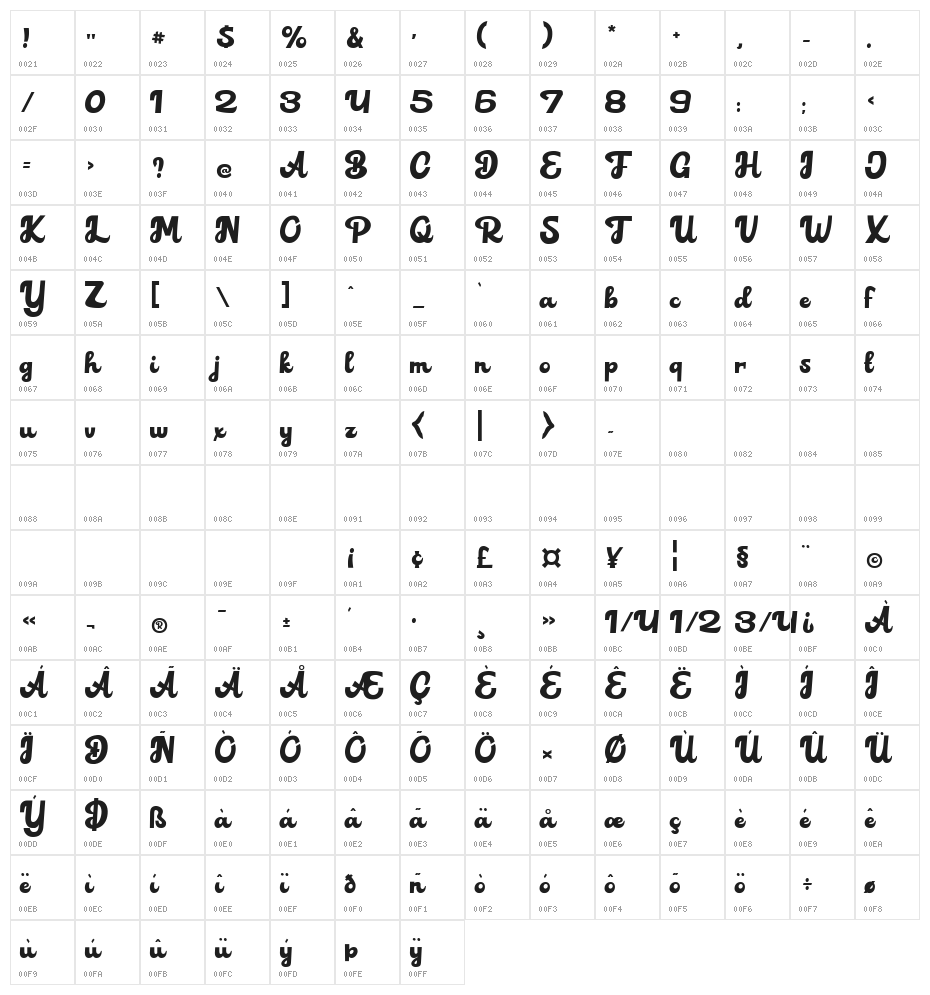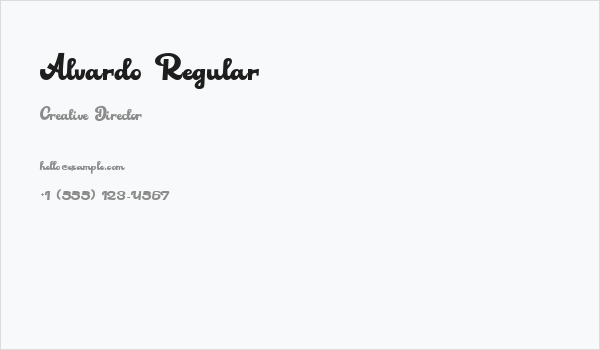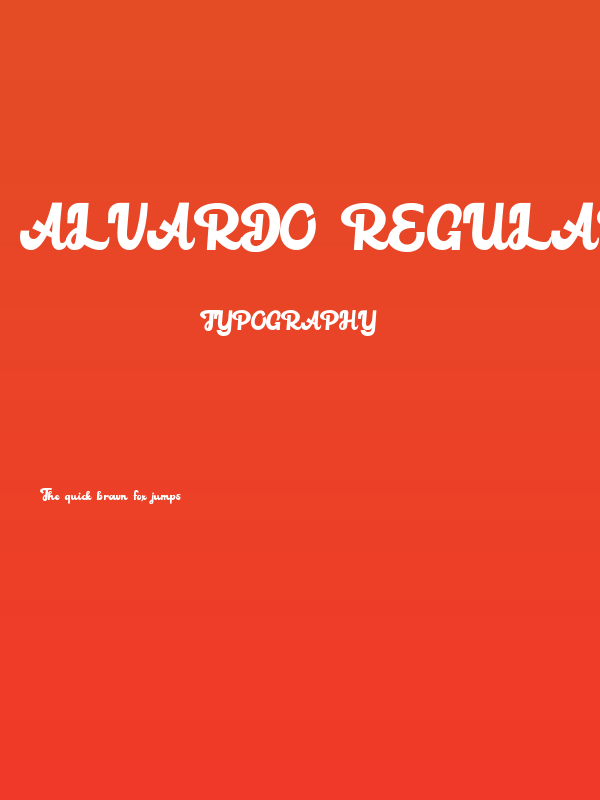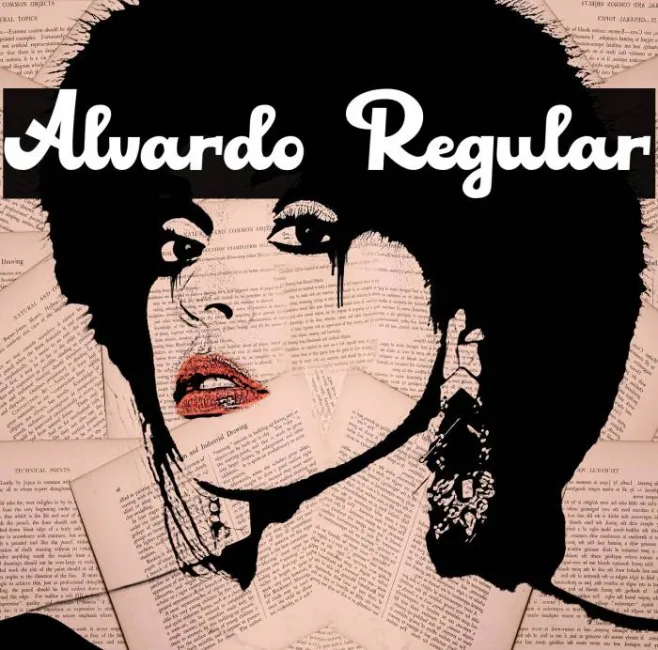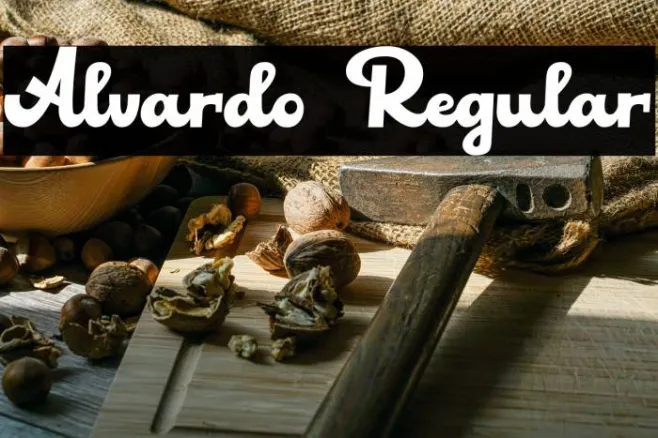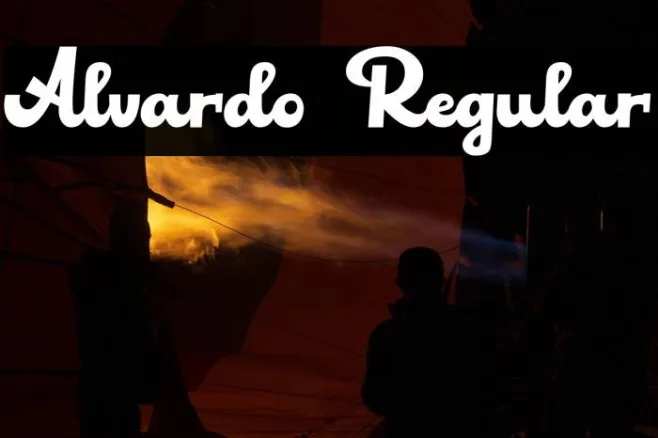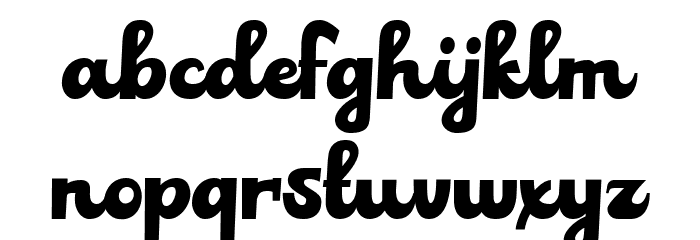
Alvardo Regular Font
Alvardo Regular Description
This font features a bold, flowing script style with a playful and dynamic appearance. The uppercase letters are characterized by their thick strokes and rounded edges, giving them a robust and friendly look. The lowercase letters maintain a consistent style, with smooth curves and a slightly condensed form that enhances readability. Numbers and special characters are designed to match the overall aesthetic, ensuring a cohesive look across all text elements. The font's design is reminiscent of retro signage, making it ideal for projects that require a touch of nostalgia or a lively, informal tone.
| Overall Style | Retro, Playful |
| Proposed Projects | Ideal for branding, posters, retro-themed designs, and playful invitations. |